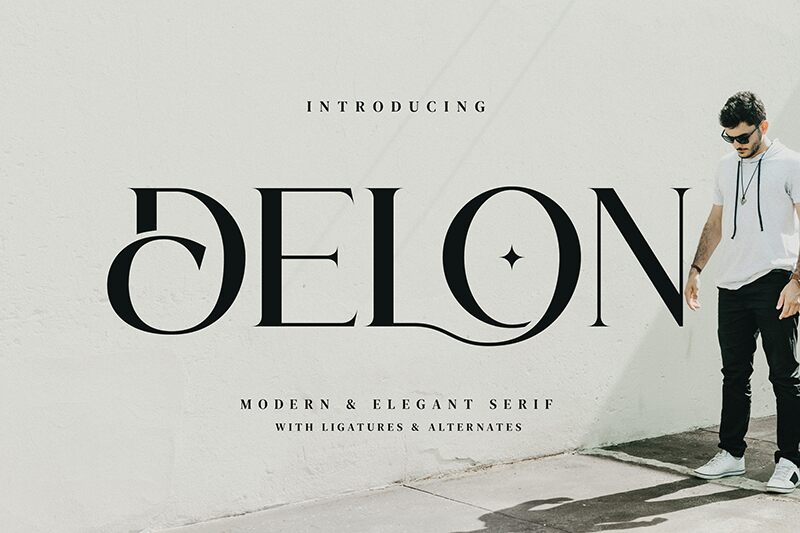
Delon
Delon font is a classical and timeless serif developed and designed by Biham Santoso. The elegant and refined characters form the basis of a truly breathtaking formal font style that will add sophistication wherever used. Thick agonistic strokes are complemented by thin heroic endings to generate contrasting shapes that can be as unique as their combination.
Delon is a free serif font recommended for use on branding projects, visual identities, business cards, postcards, fine invitations, stationary designs, book covers or inside pages. All forms of typography including headings and subheadings will seem more special thanks to typography compositions made using this typeface.